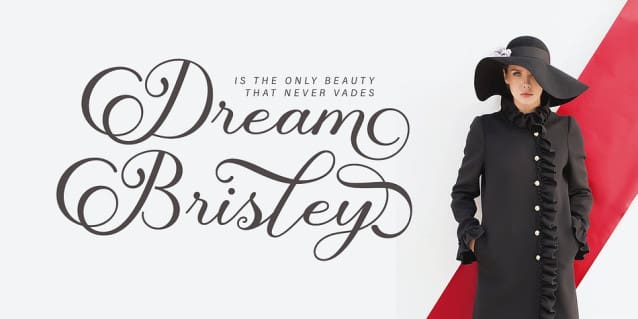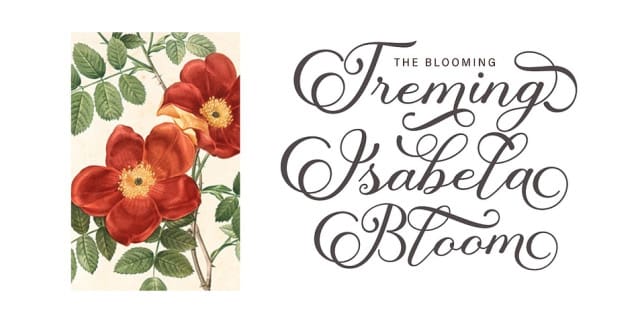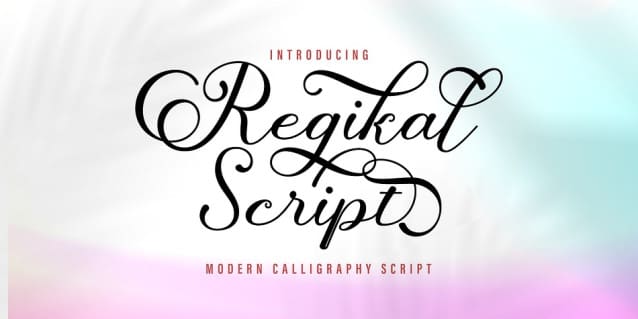
Regikal Script Font
Regikal Script Font a luxury script that has its own unique style & modern look. This typeface is perfect for an elegant & luxury logo, book or movie title design, fashion brand, magazine, clothes, lettering, quotes, and so much more.